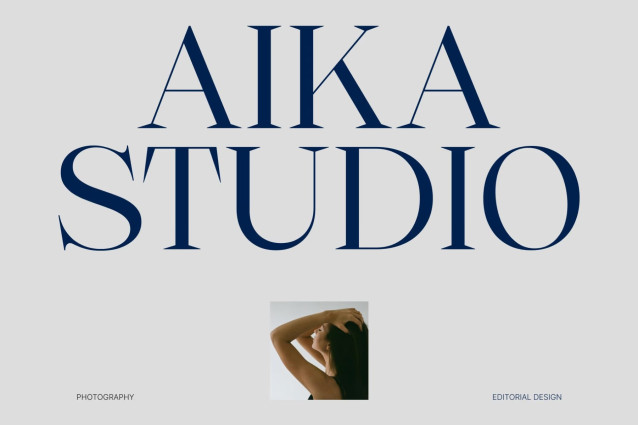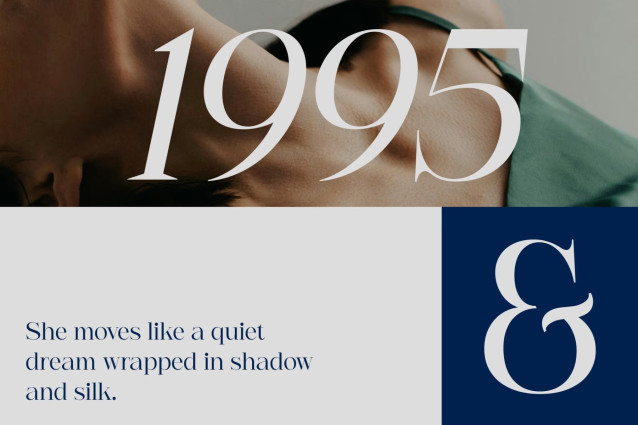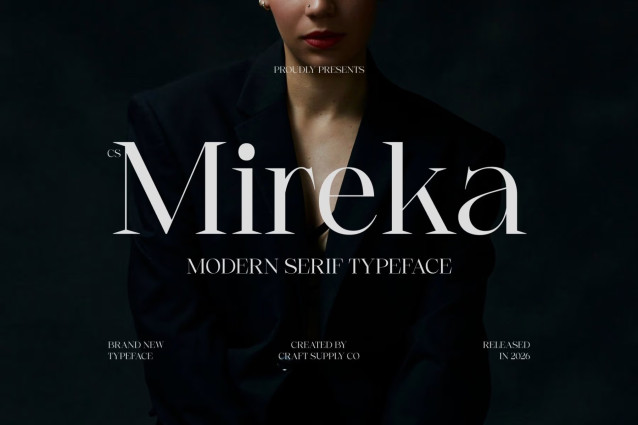
CS Mireka – Modern Serif Font
CS Mireka – Modern Serif Font: Where Refined Elegance Meets Editorial Luxury
Elegant Letterforms with High-Contrast Beauty
This is a modern serif font featuring elegant, refined letterforms and beautifully balanced high-contrast strokes. Its graceful proportions and delicate serif details create a sophisticated visual rhythm that feels timeless, polished, and effortlessly luxurious. Every character is designed to express refinement while maintaining exceptional readability and visual harmony.
Sophisticated Design with Premium Appeal
Blending classic serif elegance with contemporary precision, this font embodies the aesthetics of luxury editorial typography. Its clean structure and dramatic contrast give every word a graceful presence, making it ideal for projects that require both professionalism and high-end visual impact. The result is typography that feels exclusive, stylish, and enduring.
Timeless Typography for Elegant Visual Identities
This font creates a distinctive visual identity that communicates sophistication and confidence. Whether used for striking headlines or refined brand materials, its elegant construction delivers a memorable impression that enhances the overall sense of quality and prestige.